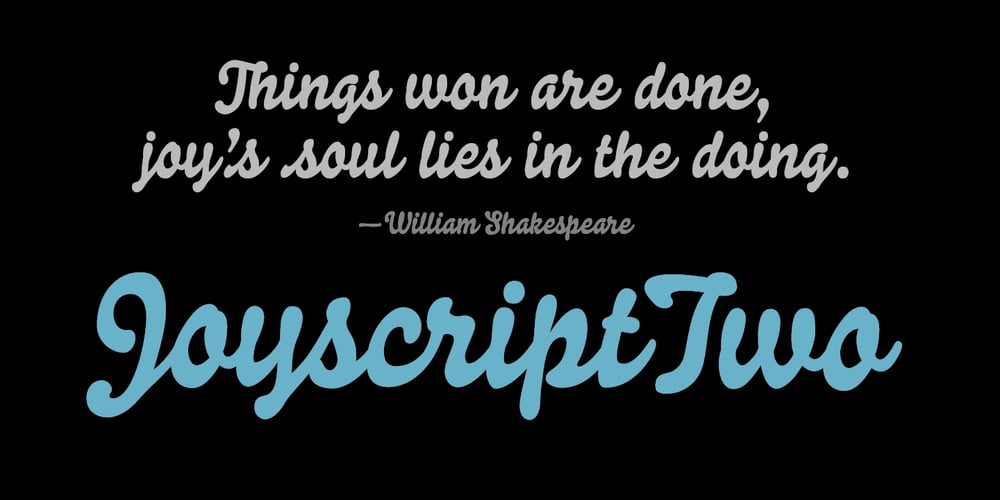
Joyscript Two Font Family was designed by John Nahmias and published by Jonahfonts. Joyscript Two contains 1 styles and family package options. Joyscript-Two is an upgrade of the ‘Plain-Joyscript’ Font containing many more ligatures which makes it much more versatile and may be applied to many applications including headlines, logos, ads, captions, packaging, bulletins, posters, books and greeting cards.